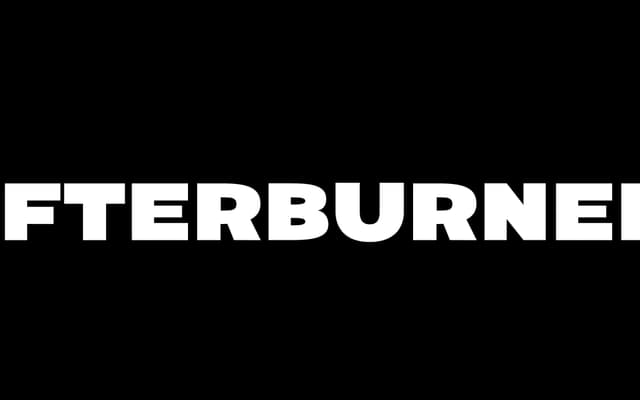
Afterburner
A single-weight extended display face drawn from grotesque traditions, built for heavy, large-scale typesetting.
Afterburner is a wide, heavy display face that revisits the proportions and character of historical grotesque typefaces through a contemporary lens. Available as a single weight, it is designed for headlines and poster work where bold extended letterforms command attention. The licensing model separates a base purchase from commercial add-ons, suggesting it is aimed at studio and brand use.
Described explicitly as an extended, heavy-weight display face drawing from grotesque traditions; the extended width and display-only positioning push it into the display category rather than a general-purpose grotesque.